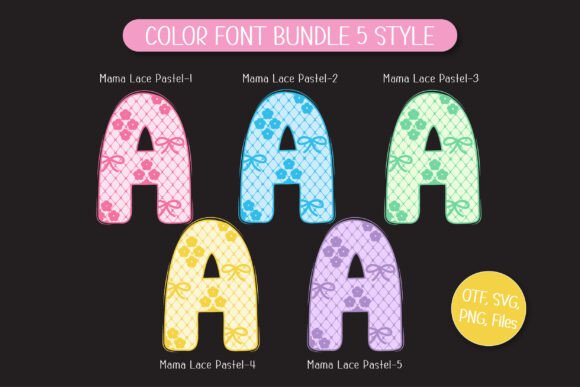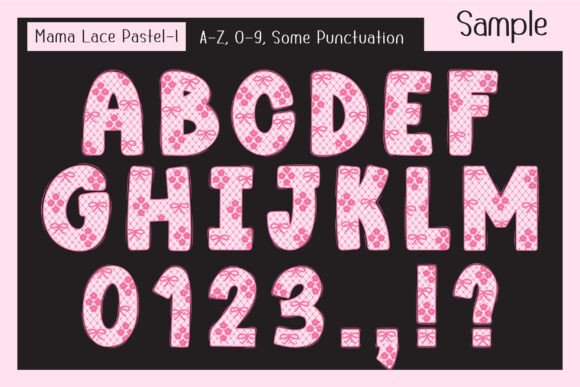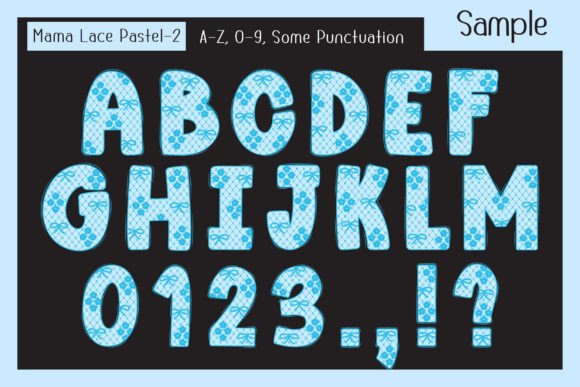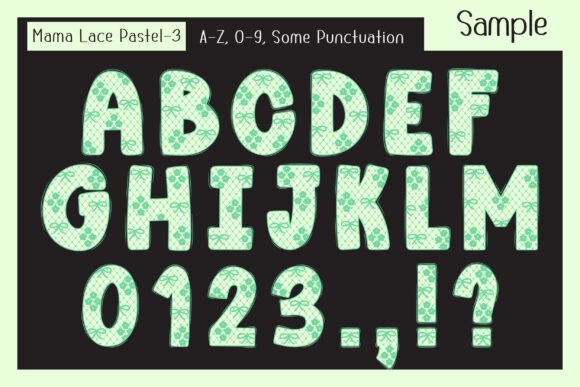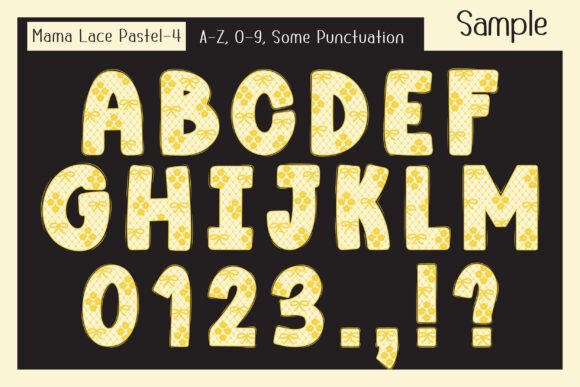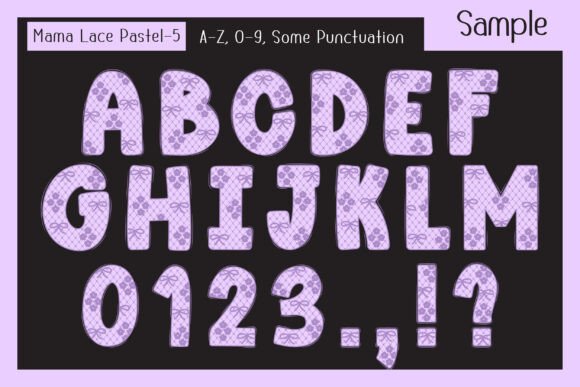
Introduction to Mama Lace Pastel Font Font
Fonts play a crucial role in design, and the Mama Lace Pastel Font font is a typeface that brings both character and versatility to any project. Whether you’re working on a branding project, a website, or a print design, the Mama Lace Pastel Font font offers a unique style that can elevate your work.
Introducing โMama Lace Pastelโ a charming color font inspired by the original Mama Lace, now enhanced with a beautiful palette of 5 pastel colors.
Designed to reflect the warmth, tenderness, and intricately woven bonds between a mother and child, this font embodies the elegance of lace with a soft and delicate touch Complete with 20 matching Lace Doodle Cliparts, itโs perfect for Motherโs Day posters, heartfelt quotes, t-shirts, custom names, DIY craft projects, and more.
The Mama Lace Pastel Font font is more than just a typeface โ it’s a design tool that helps you communicate your message with style and clarity. Its unique character set and versatile design make it suitable for a wide range of applications, from elegant invitations to bold headlines.
With its carefully crafted letterforms and balanced proportions, the Mama Lace Pastel Font font ensures readability and visual appeal across all mediums.
What makes Mama Lace Pastel Font font special?
The Mama Lace Pastel Font font stands out with its unique design, exceptional readability, and versatility across various design applications.